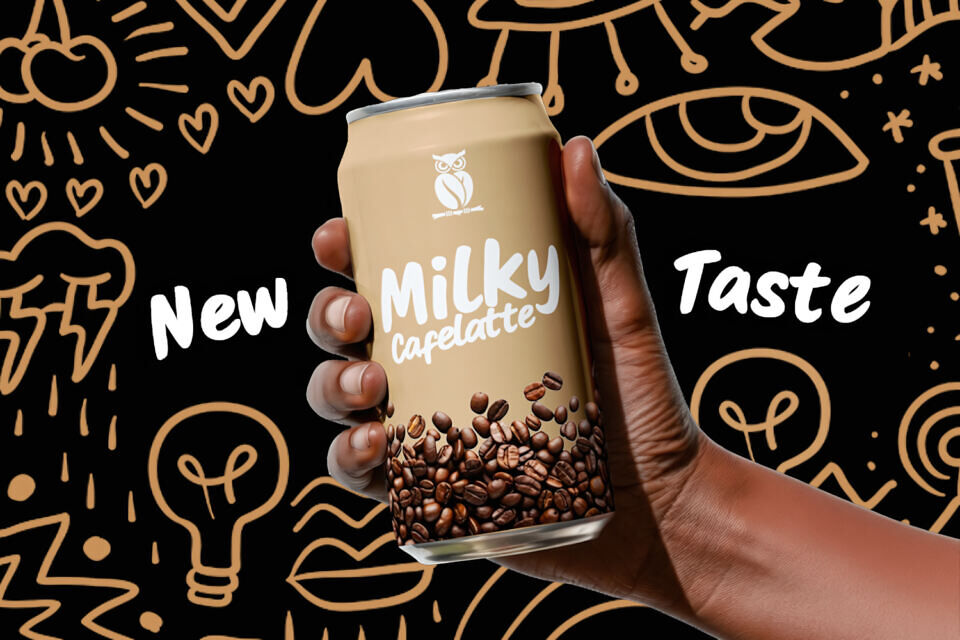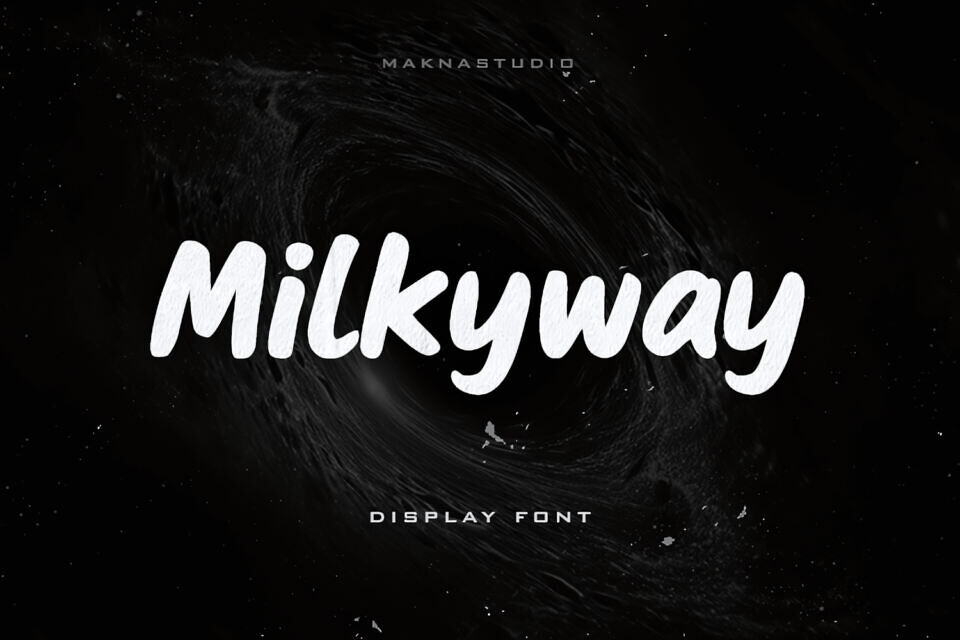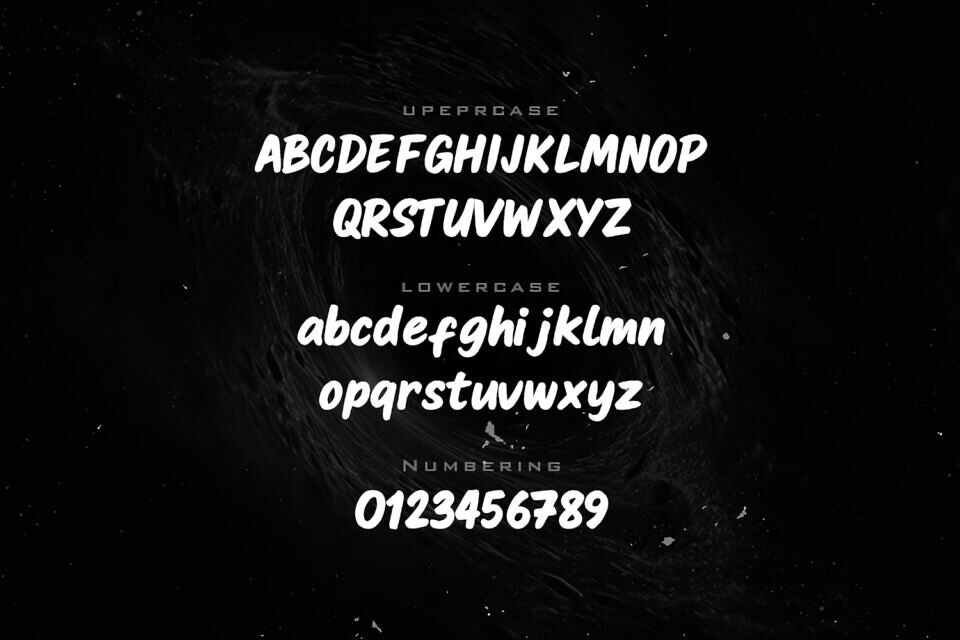
Milkyway is a bold brush font that blends raw energy with artistic flair. Each letter is hand-painted with expressive strokes, giving your text a dynamic, organic feel.
Perfect for branding, posters, apparel, and anything that needs a splash of attitude and creativity. Let your words shine like stars with Milkyway.